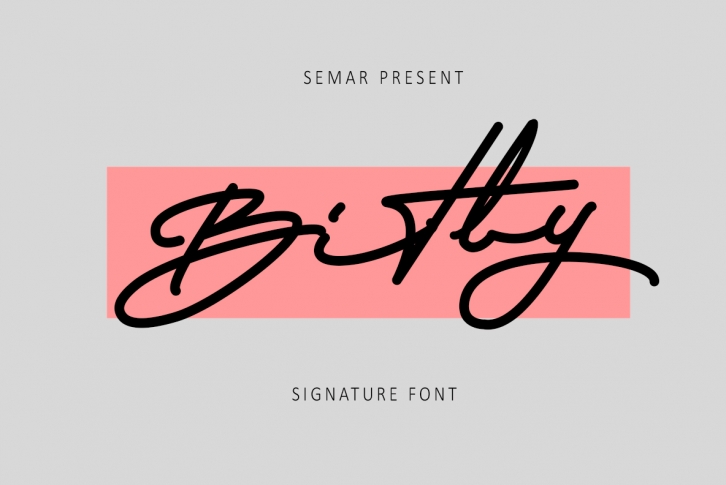
Bitly Handwritten s is a trendy and unique font with an authentic style. It was designed by Maulana Semar and it's a great choice for creative people who need such a font. It was released on February 7, 2019 and the file size is 17.56 MB. Bitly Handwritten s will add an organic vibe to any design idea!